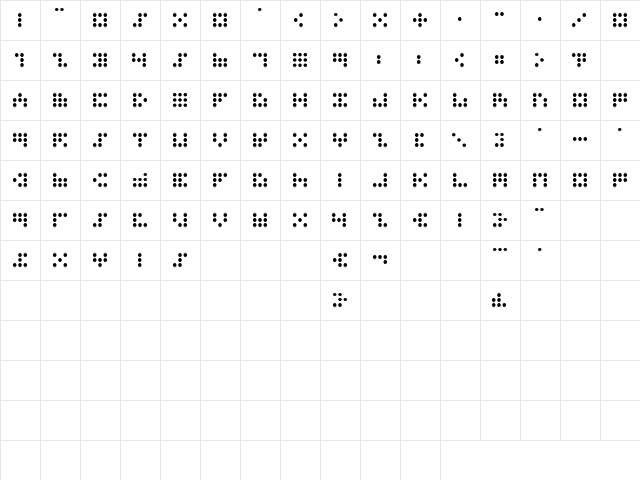
3x3 dots Regular Free Font
3x3 dots Regular
Design Context for 3x3 dots
3x3 dots is rooted in pixel-grid construction, making it a natural fit for game UI, retro computing aesthetics, and digital nostalgia projects.
Pro Tip: Use 3x3 dots at sizes that align with its pixel grid for the sharpest rendering - scaling to non-integer multiples can introduce unwanted blur.